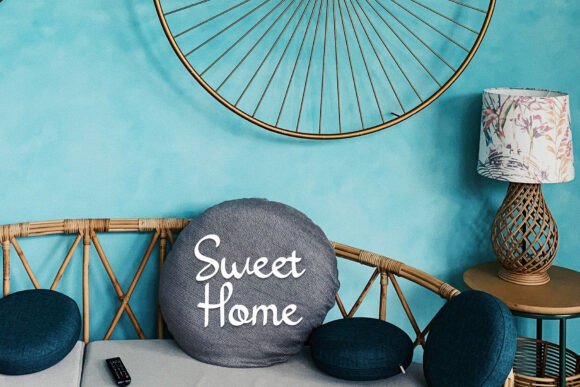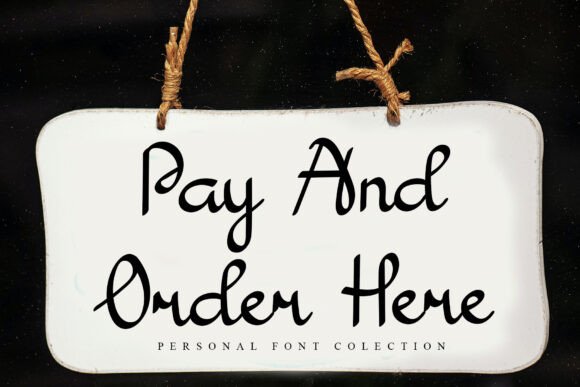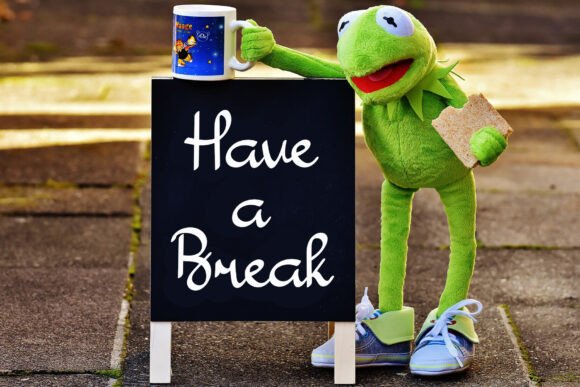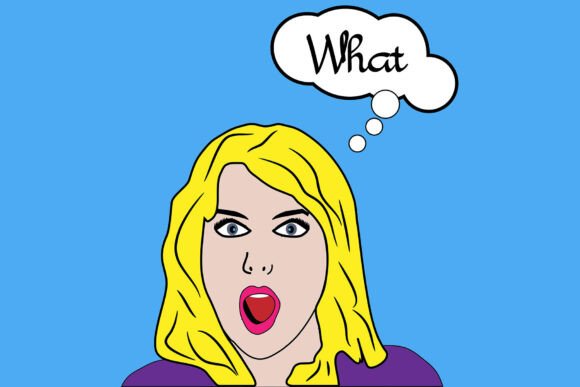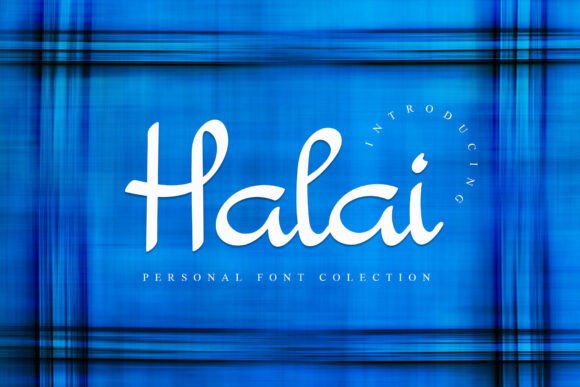
Introducing Halai Font: Elevate Your Designs with Elegance
In the world of typography, fonts play a crucial role in conveying messages, evoking emotions, and setting the tone for various projects. Whether you’re a designer, crafty DIY enthusiast, or a student working on a school assignment, finding the right font can make all the difference. This is where Halai Font comes into play – a unique, elegant, and professionally crafted typeface designed to elevate your projects to the next level.
What Makes Halai Font Stand Out?
Halai Font is not just another addition to the vast sea of typefaces available online. It’s a meticulously designed font that boasts a professional hand touch, making it perfect for a wide range of applications. From wedding invitation cards and birthday greetings to party invitations and school projects, Halai Font is versatile enough to suit various needs.
For designers and crafters, the quest for a font that is both unique and easy to read is always on. Halai Font fits the bill perfectly. Its elegant design ensures that your projects stand out, whether you’re working on:
- Wedding invitation cards: Add a touch of sophistication and romance to your wedding invites.
- Birthday and party invitations: Make your party invites more appealing and engaging.
- School assignments: Give your projects a professional look that impresses your teachers.
- Creative ideas: Apply Halai Font to your innovative projects to give them a distinctive edge.
Crafted with Care and Precision
Halai Font is crafted with meticulous attention to detail. This ensures not only an aesthetically pleasing appearance but also excellent readability. The font is designed to be accessible with all glyphs, eliminating the need for any additional applications. This feature makes it incredibly convenient for users to incorporate Halai Font into their projects without any hassle.
Why Choose Halai Font?
With so many fonts available, why should you choose Halai Font for your projects? Here are a few compelling reasons:
- Unique and Elegant: Halai Font offers a distinctive look that can set your projects apart from the rest.
- Professional Touch: Its professional design makes it suitable for formal and informal projects alike.
- Versatility: Use it for a variety of projects, from greeting cards to school assignments.
How to Make the Most of Halai Font
To truly benefit from Halai Font, consider the following tips:
- Pair it with Other Fonts: Experiment with combining Halai Font with other typefaces to create visually appealing contrasts.
- Play with Sizes and Colors: Don’t be afraid to vary the size and color of the text to draw attention to key points or to evoke certain emotions.
- Use it Consistently: For multi-page documents or extensive projects, use Halai Font consistently to maintain a cohesive look.
Halai Font is more than just a typeface; it’s a tool that can transform your projects, making them more engaging, elegant, and professional. Whether you’re a seasoned designer, a crafty DIY enthusiast, or a student, Halai Font offers the versatility and sophistication you need to bring your ideas to life. With its unique design, professional touch, and ease of use, Halai Font is poised to become your go-to choice for all your creative endeavors.